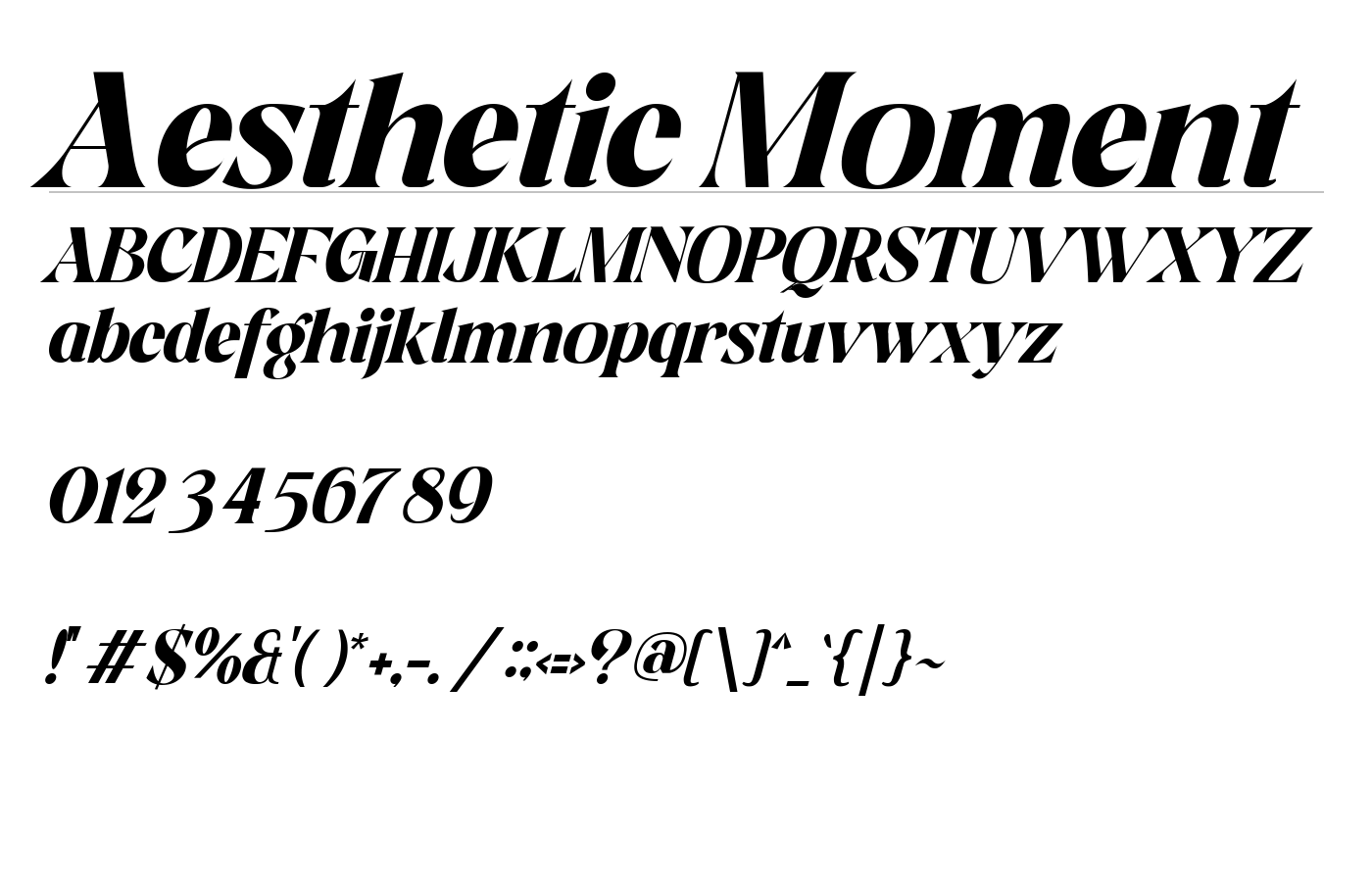
Aesthetic Moment is an elegant serif font with a distinct Didone influence, featuring high contrast between thick and thin strokes and sharp, refined serifs. Its italic style and flowing letterforms convey sophistication and grace, making it ideal for luxury branding, fashion, editorial headlines, and upscale packaging. This font’s classic yet stylish character enhances designs that require a touch of timeless refinement and visual impact.
Aesthetic Moment Font
About Aesthetic Moment Font
| Font family | Aesthetic Moment Font |
| Designer | Muhammad Afif Ersya |